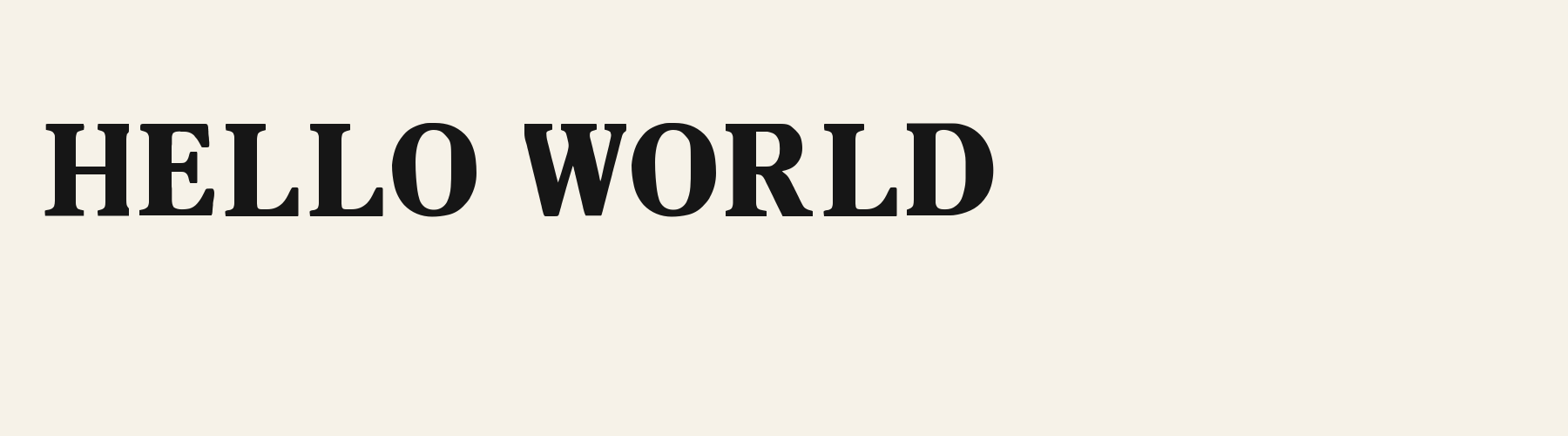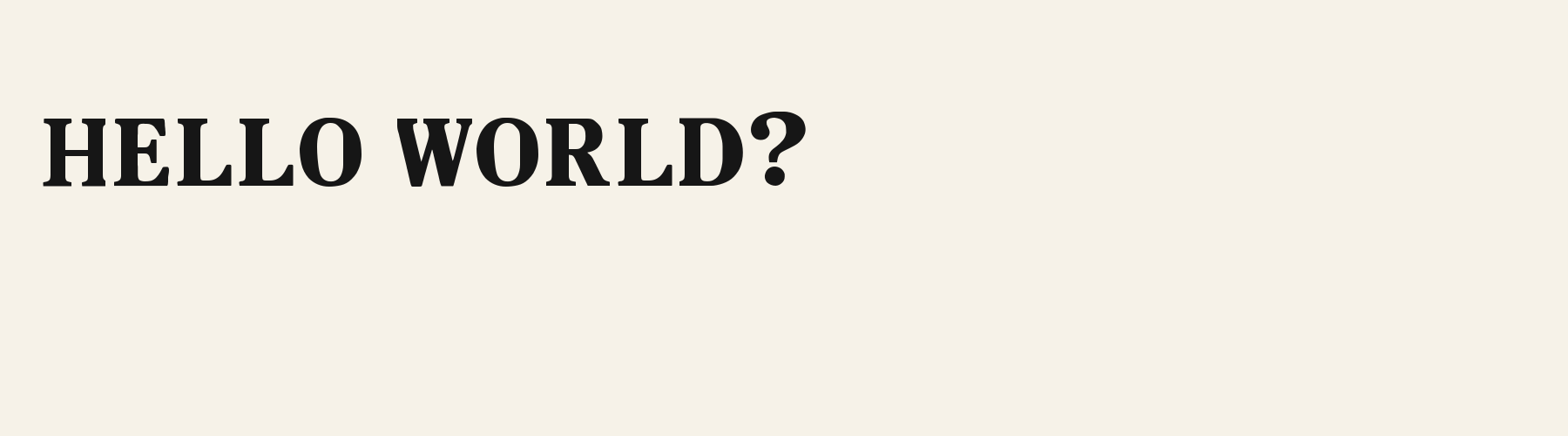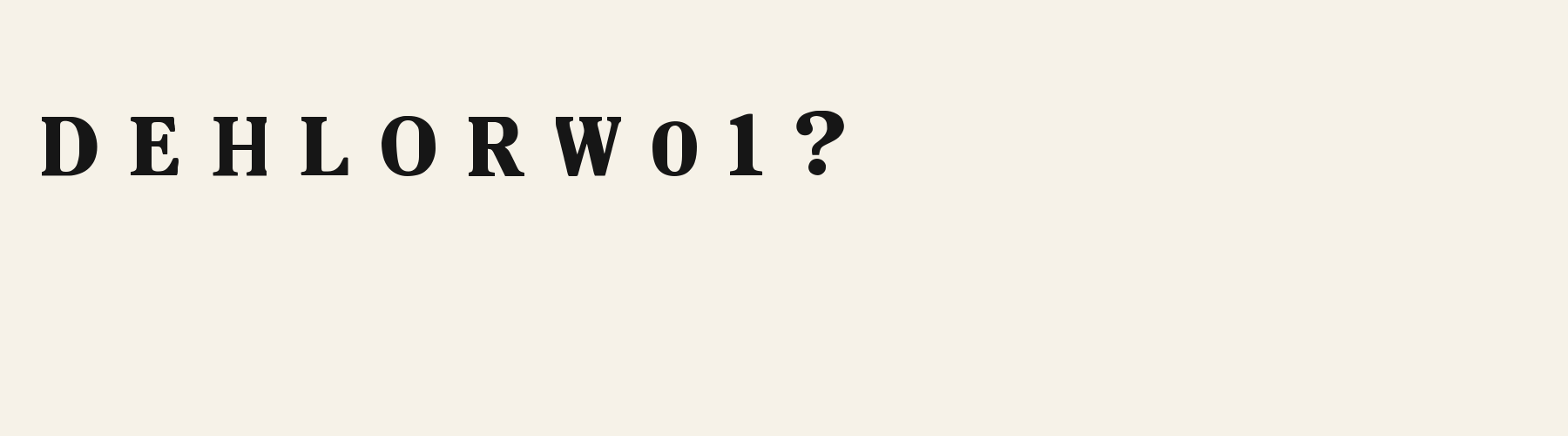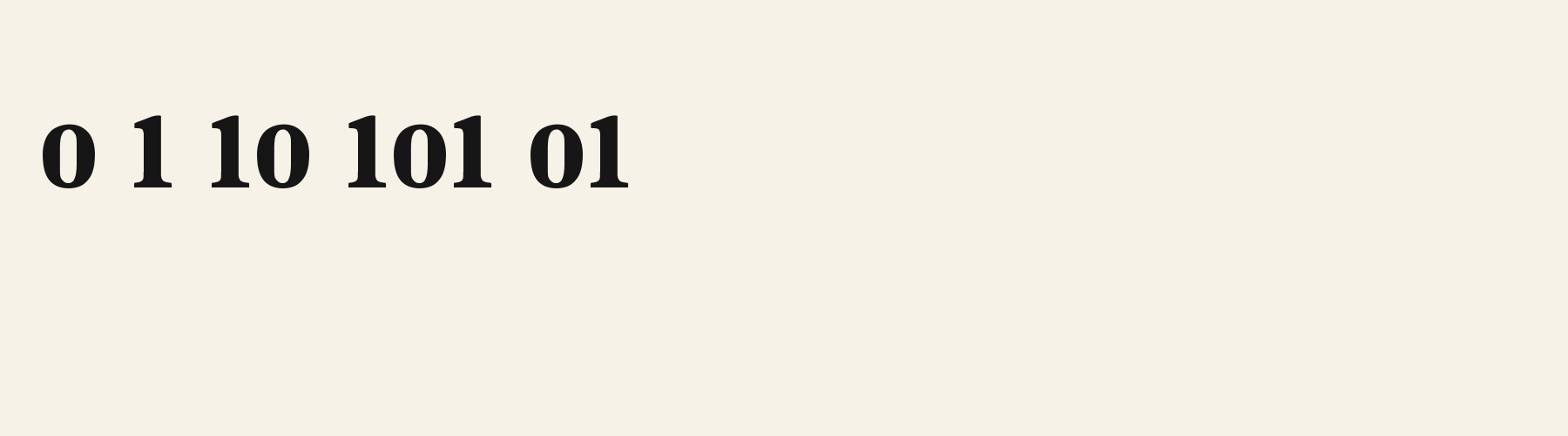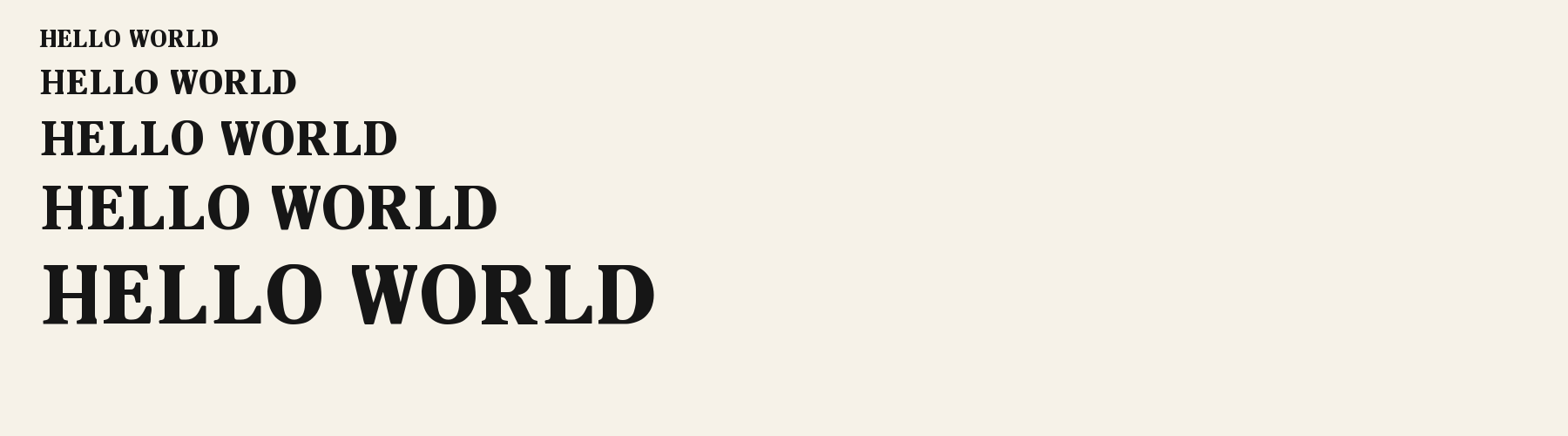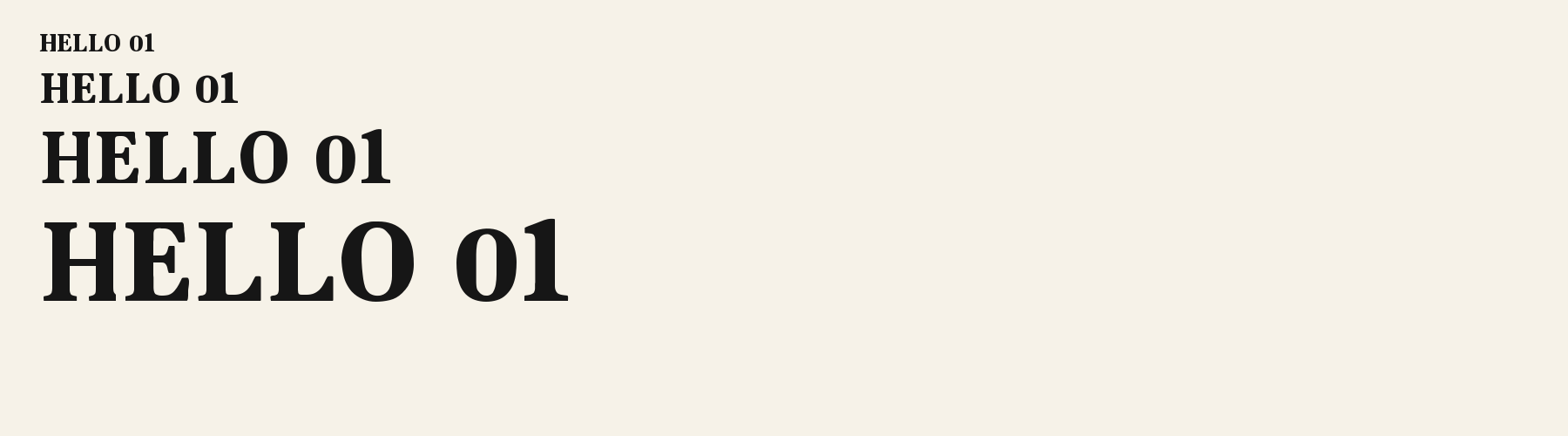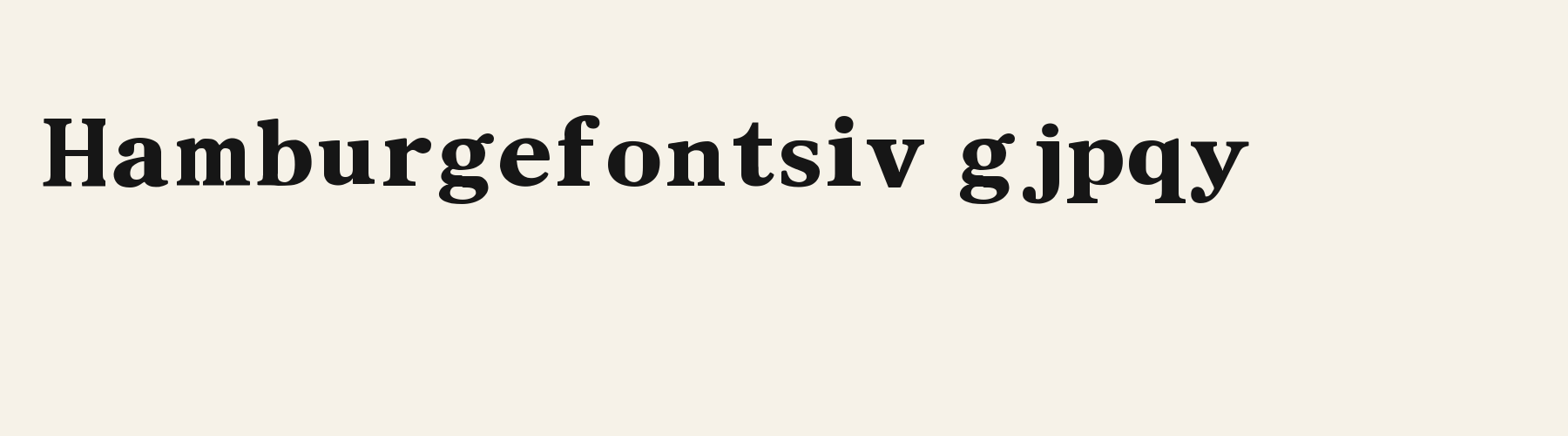
Pretty Pearl Serif
Serif · 1 style · 148 glyphs · Version 0.1.0
Retro Serif Newsprint is an A compact vintage newsprint serif for crisp editorial decks, labels, and compact headlines. Moderate contrast with sturdy serifs. Best for editorial decks, labels, and compact headline work.
Includes all 95 printable Basic Latin characters and 148 glyphs in total.